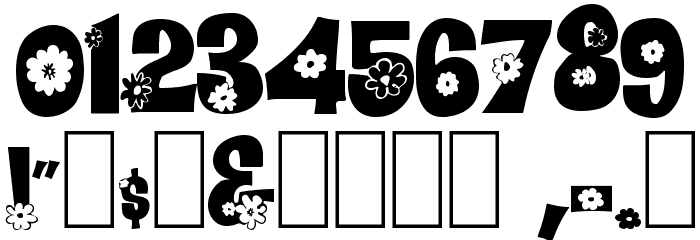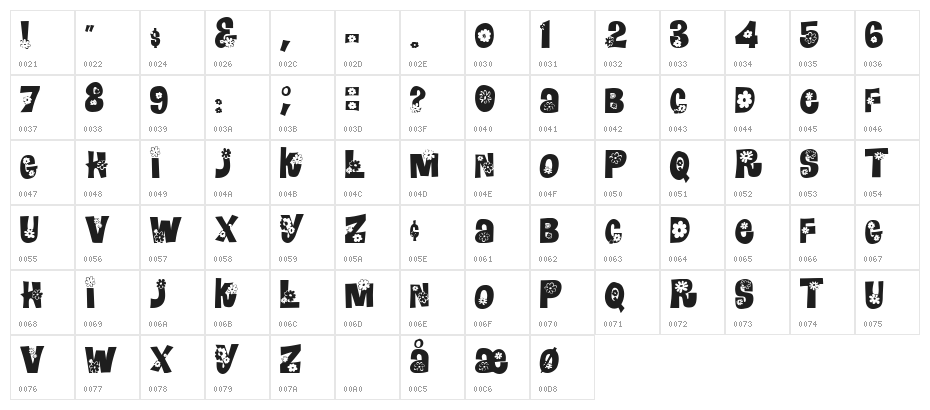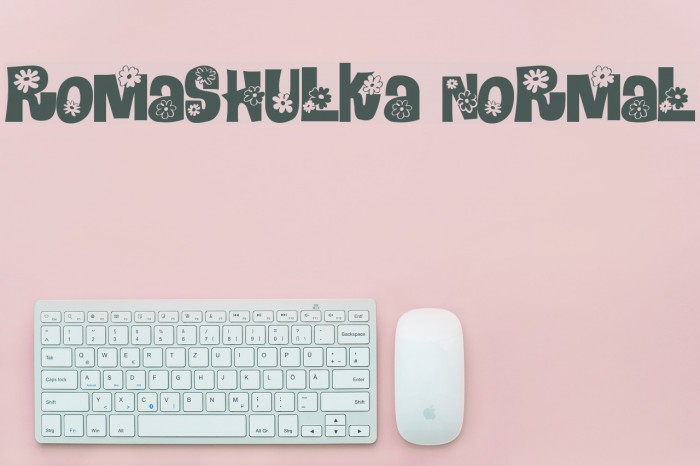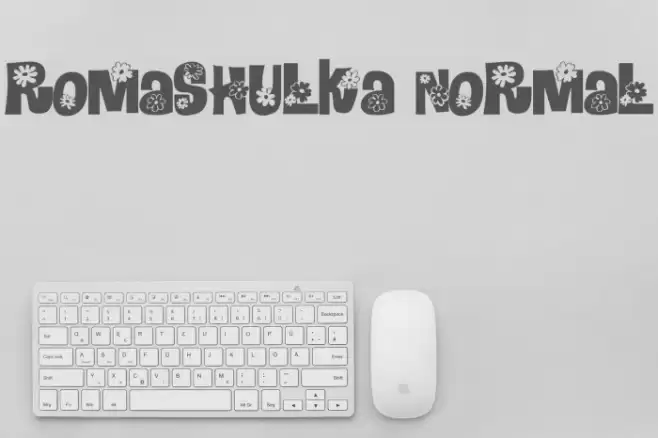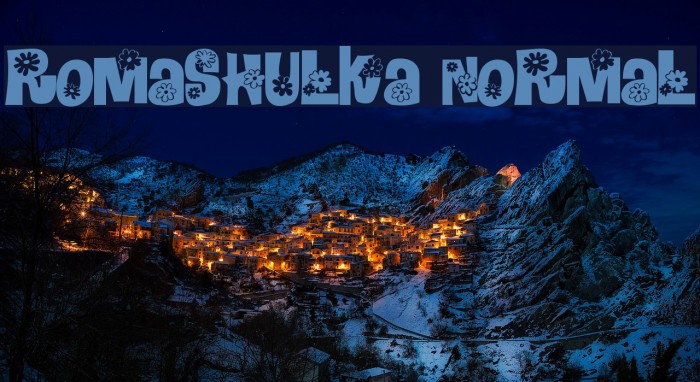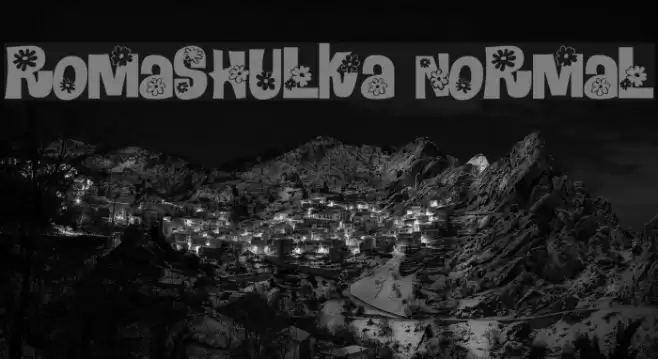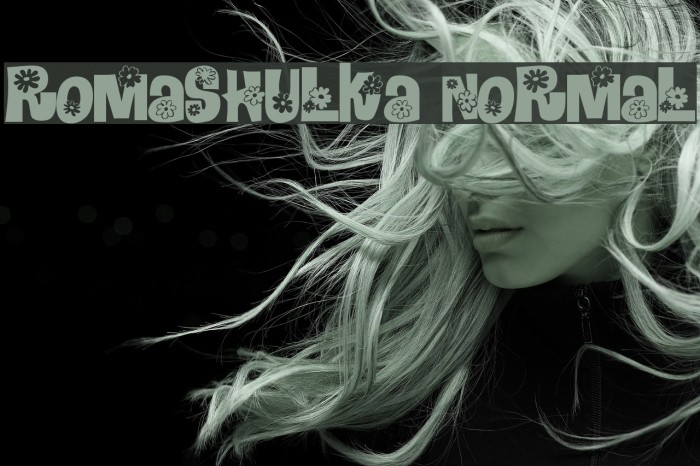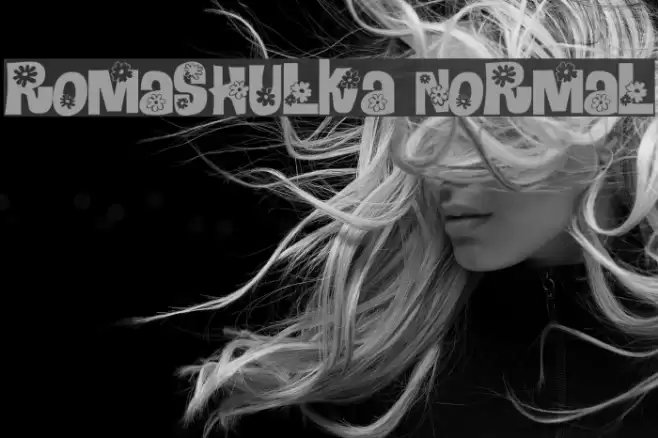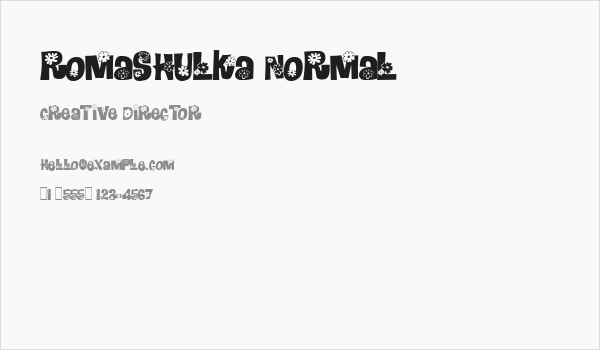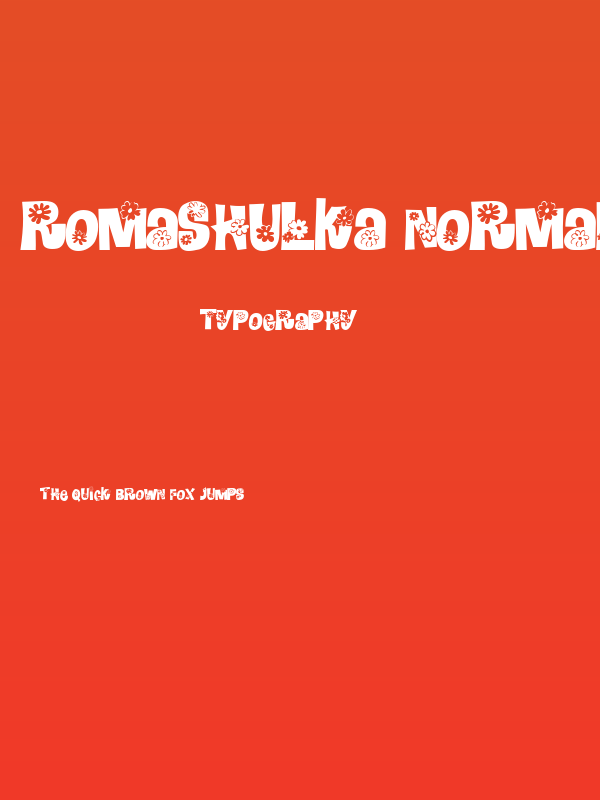
Romashulka Normal Font
Romashulka Normal Description
This playful and decorative font features bold, chunky letters adorned with floral motifs. Each character is uniquely designed with flowers integrated into the letterforms, creating a whimsical and cheerful appearance. The uppercase and lowercase letters maintain a consistent style, with the floral elements adding a touch of nature-inspired charm. The numbers and special characters follow the same decorative theme, making this font ideal for projects that require a fun and lively aesthetic. Its boldness ensures high visibility, while the intricate details of the floral designs add an artistic flair.
| Proposed Projects | Ideal for children's book covers, greeting cards, playful branding, and event invitations. |